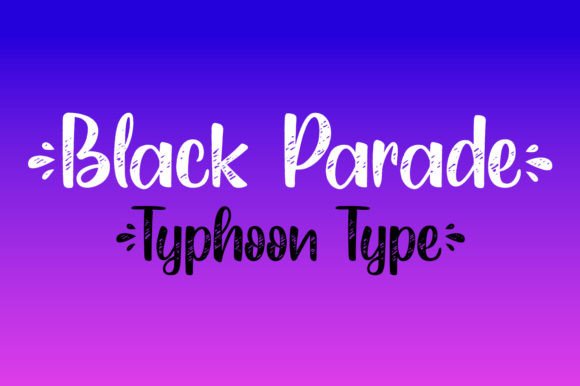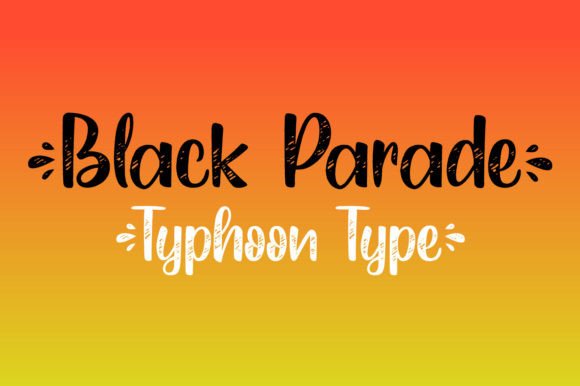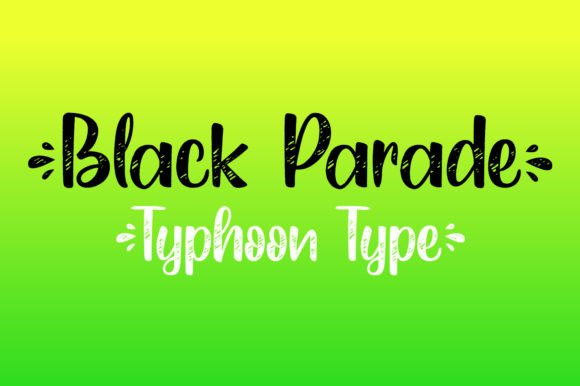
Introducing Black Parade Font: The Ultimate Friendly Handwritten Font
Are you tired of using the same old fonts for your designs? Look no further! Black Parade Font is a cute and casual handwritten font that is sure to bring a friendly feel to your projects. With its unique and approachable style, it’s perfect for a wide range of applications, from logos and branding to social media posts and greeting cards.
What Makes Black Parade Font So Special?
Black Parade Font is a carefully crafted handwritten font that exudes warmth and friendliness. Its casual and approachable style makes it perfect for designers and crafters who want to add a personal touch to their work. The font’s unique characteristics include:
• Cute and Casual: Black Parade Font has a playful and laid-back vibe that’s perfect for designs that require a friendly and approachable tone.
• Handwritten with Love: The font is carefully handwritten to give it a personal and organic feel that’s hard to replicate with generic fonts.
• Incredibly Friendly: The font’s friendly feel makes it perfect for designs that require a warm and welcoming tone, such as greeting cards, social media posts, and branding.
Uses for Black Parade Font
Black Parade Font is an incredibly versatile font that can be used for a wide range of applications, including:
• Logos and Branding: Use Black Parade Font to create a unique and memorable logo that reflects your brand’s friendly and approachable personality.
• Social Media Posts: Add a personal touch to your social media posts with Black Parade Font, perfect for creating engaging and shareable content.
• Greeting Cards: Create beautiful and heartfelt greeting cards with Black Parade Font, perfect for special occasions and holidays.
• Stationery and Paper Crafts: Use Black Parade Font to add a personal touch to your stationery and paper crafts, such as journals, planners, and gift tags.
Why Designers and Crafters Love Black Parade Font
Designers and crafters love Black Parade Font for its unique and friendly style, which adds a personal touch to their work. Here are some reasons why:
• Easy to Read: Black Parade Font is clear and easy to read, making it perfect for designs that require a friendly and approachable tone.
• Highly Versatile: The font can be used for a wide range of applications, from logos and branding to social media posts and greeting cards.
• Unique and Memorable: Black Parade Font is a one-of-a-kind font that will help your designs stand out from the crowd and leave a lasting impression.
Font Name Black Parade Font
Author Typhoon Type™ – Suthi Srisopha
Black Parade Font is a unique and friendly handwritten font that’s perfect for designers and crafters who want to add a personal touch to their work. With its cute and casual style, it’s perfect for a wide range of applications, from logos and branding to social media posts and greeting cards. So why wait? Try Black Parade Font today and bring a friendly feel to your designs!